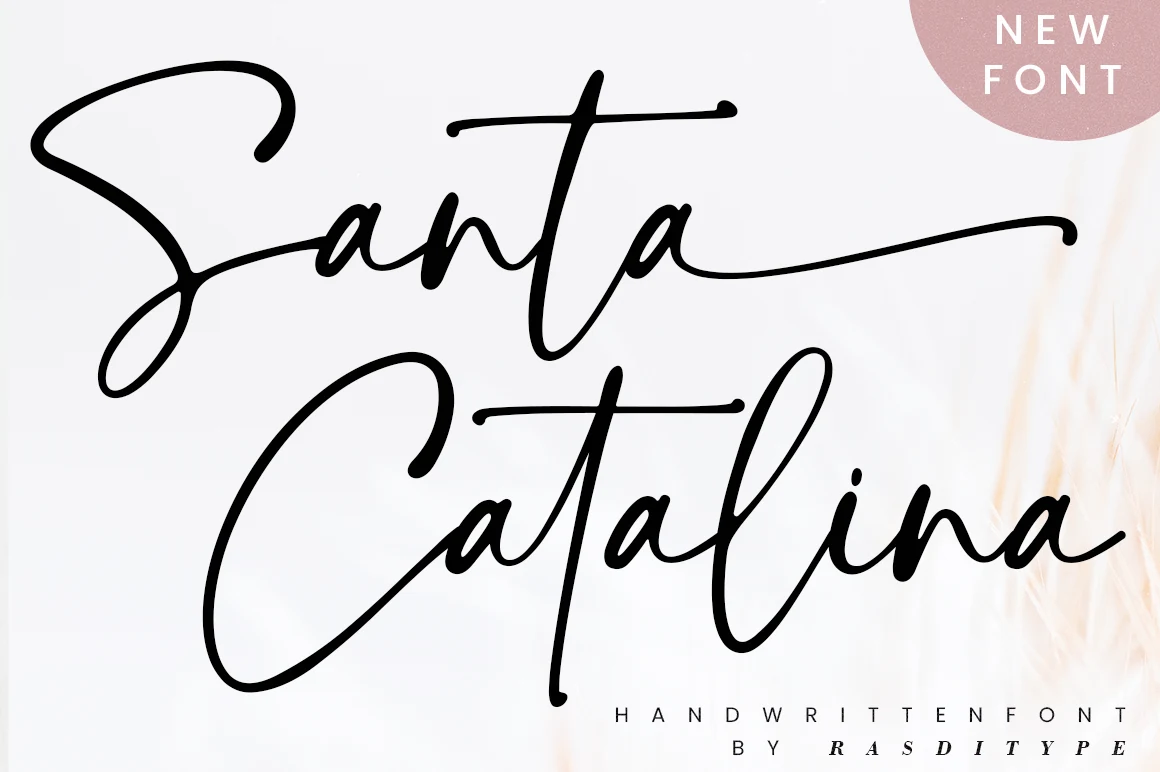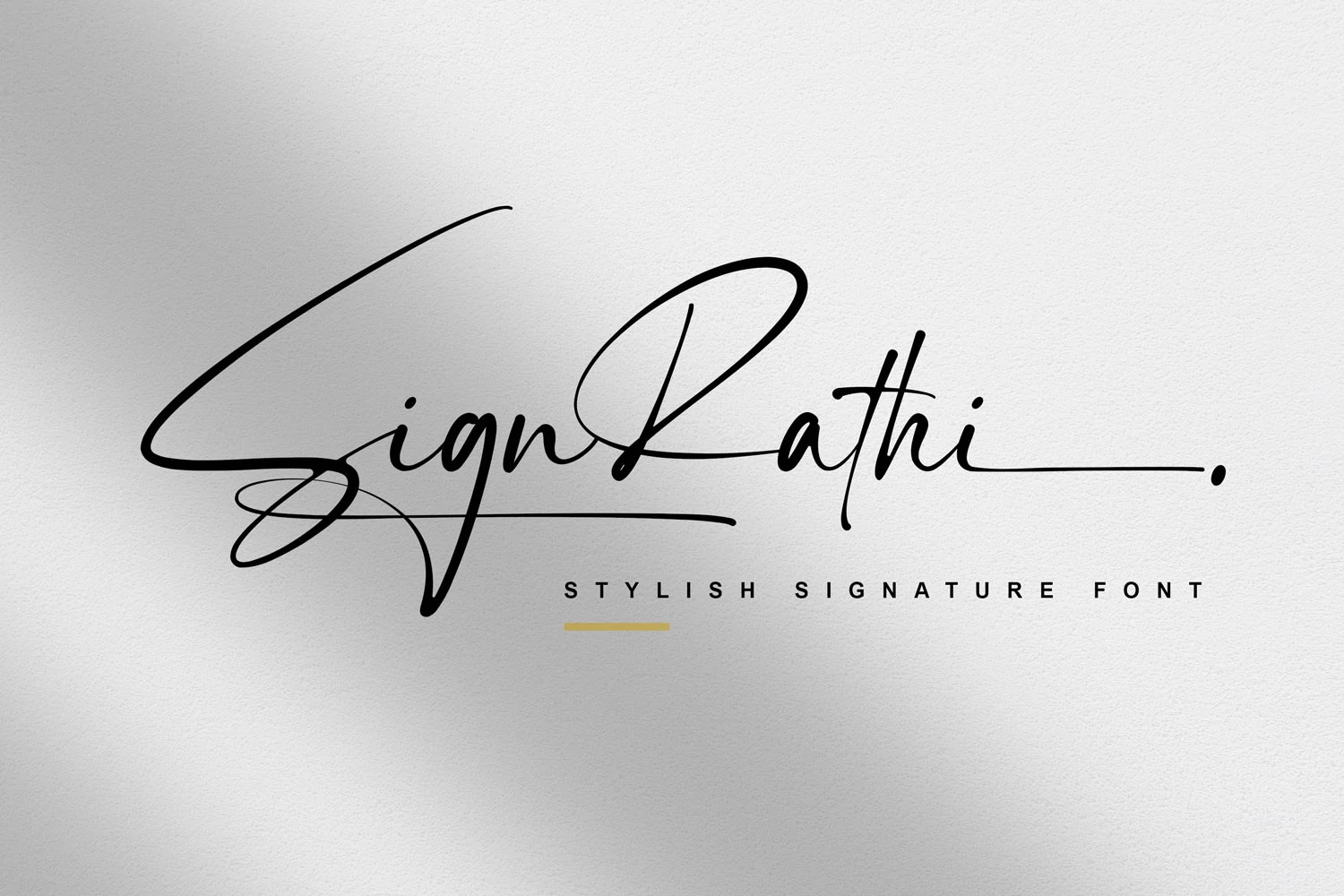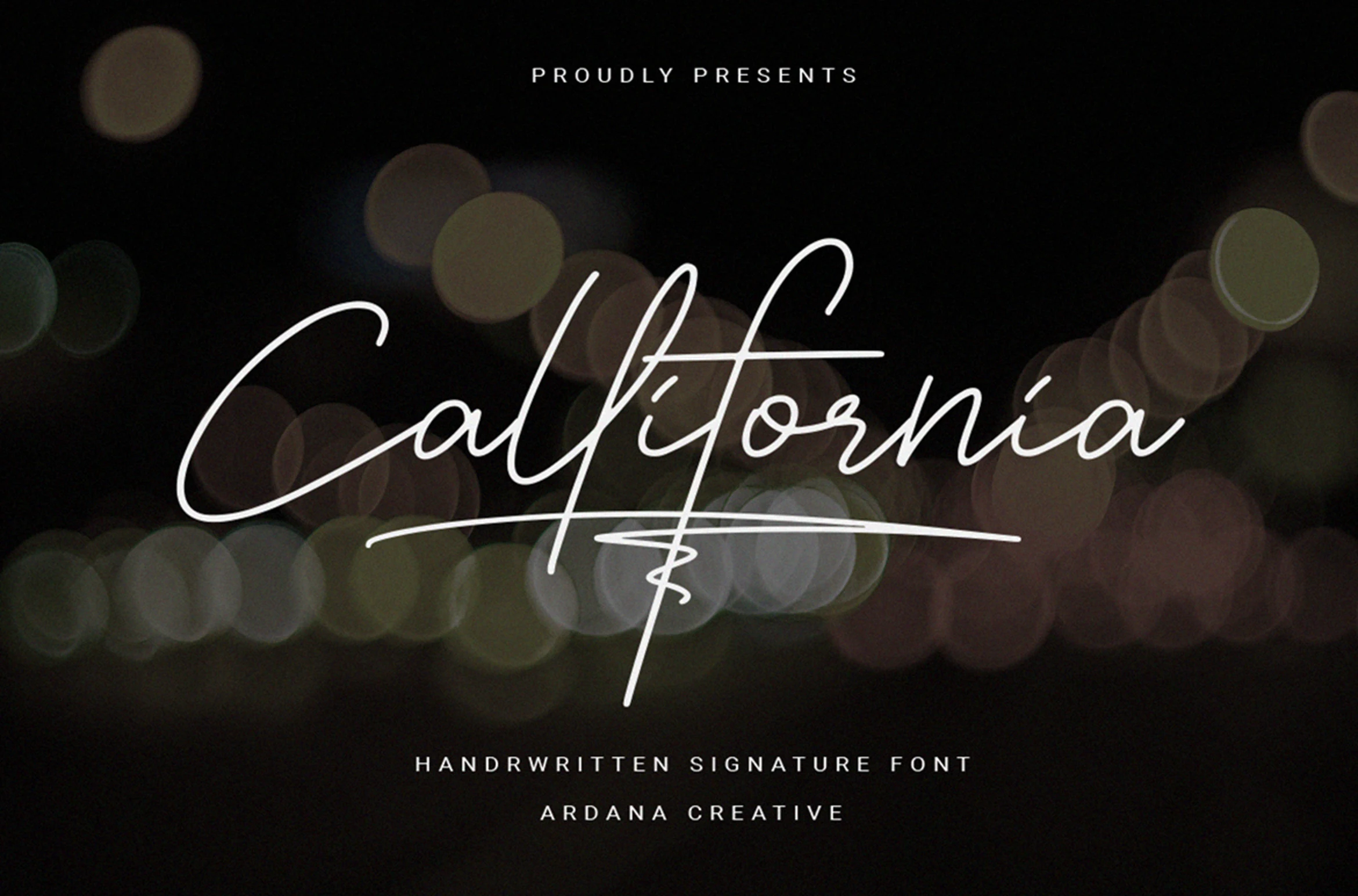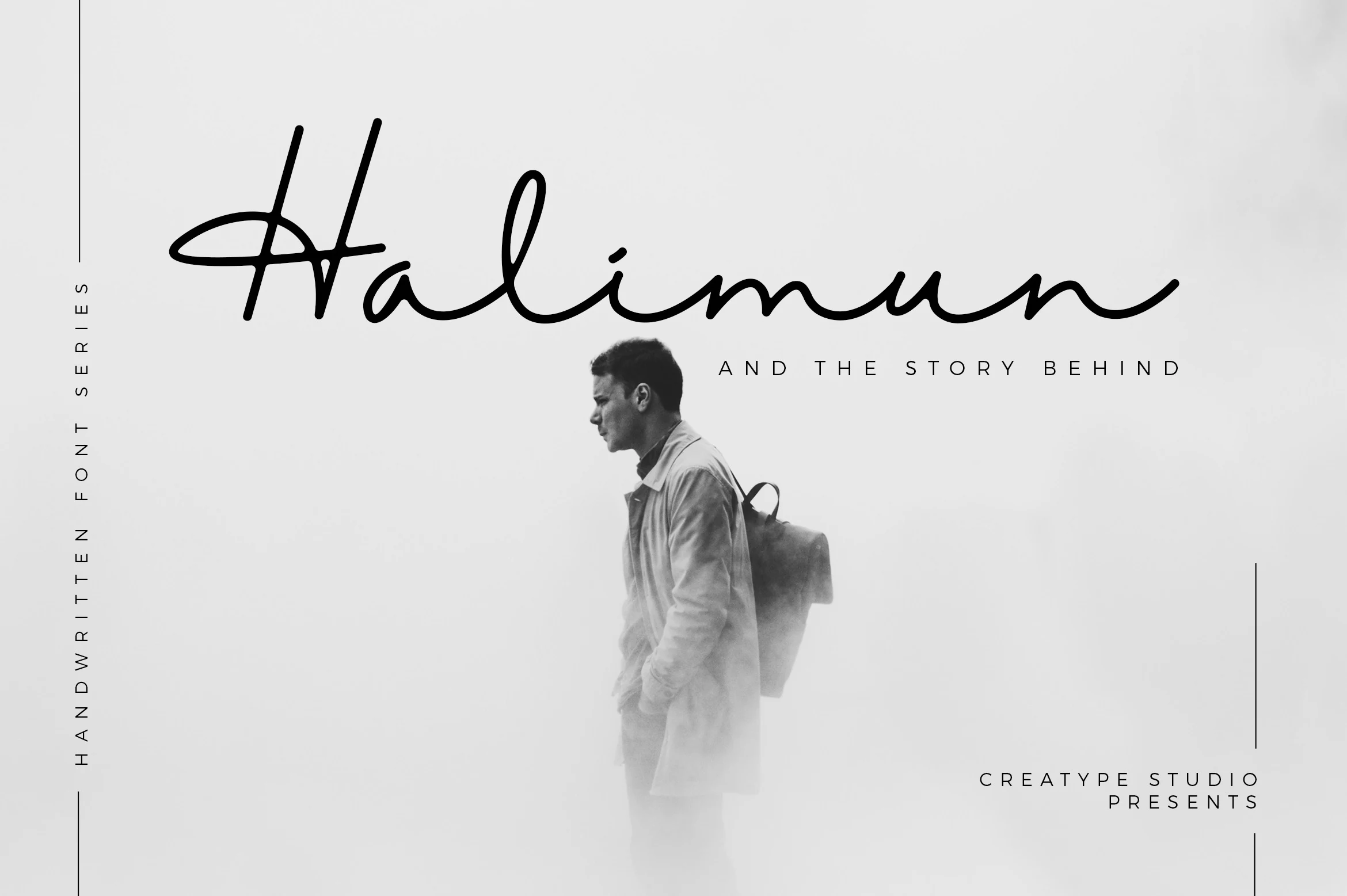
Best Script Fonts: 25 Stunning Picks for Designers
Best script fonts give logos, invitations, packaging, and social graphics a more personal typographic voice. This collection is built for designers who need readable handwritten, signature, retro, playful, or luxury scripts that can work as strong focal points without losing style or hierarchy.
Elegant & Luxury Best Script Fonts
These polished script fonts use refined curves, high contrast, and formal swashes for premium logos, invitations, editorial titles, and upscale brand identities.
Avonia Font
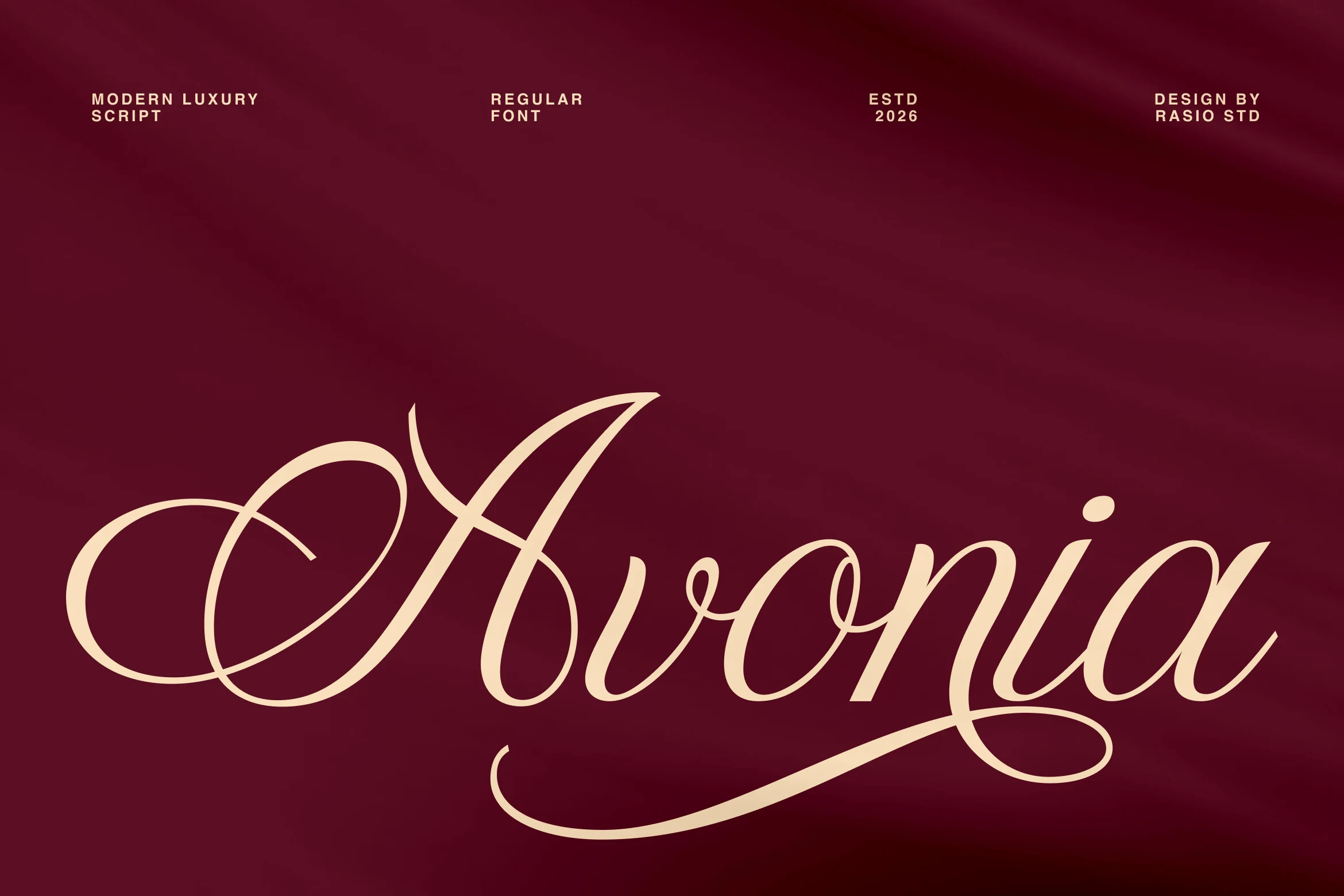
Best For: logos, editorial designs, invitations, luxury designs
Avonia Font has the kind of polished script presence that feels instantly dressy on the page. Its high-contrast strokes, long looping swashes, and tall elegant capitals create a graceful rhythm, while the smooth connections keep the word shape fluid instead of overly ornate.
If you are browsing Best Script Fonts for upscale branding or editorial titles, Avonia stands out in short, confident lines. Let the flourished capitals and extended baseline swash do the work, then pair it with restrained small caps or a quiet serif so the composition stays refined rather than crowded.
Olivia Scatcer Font
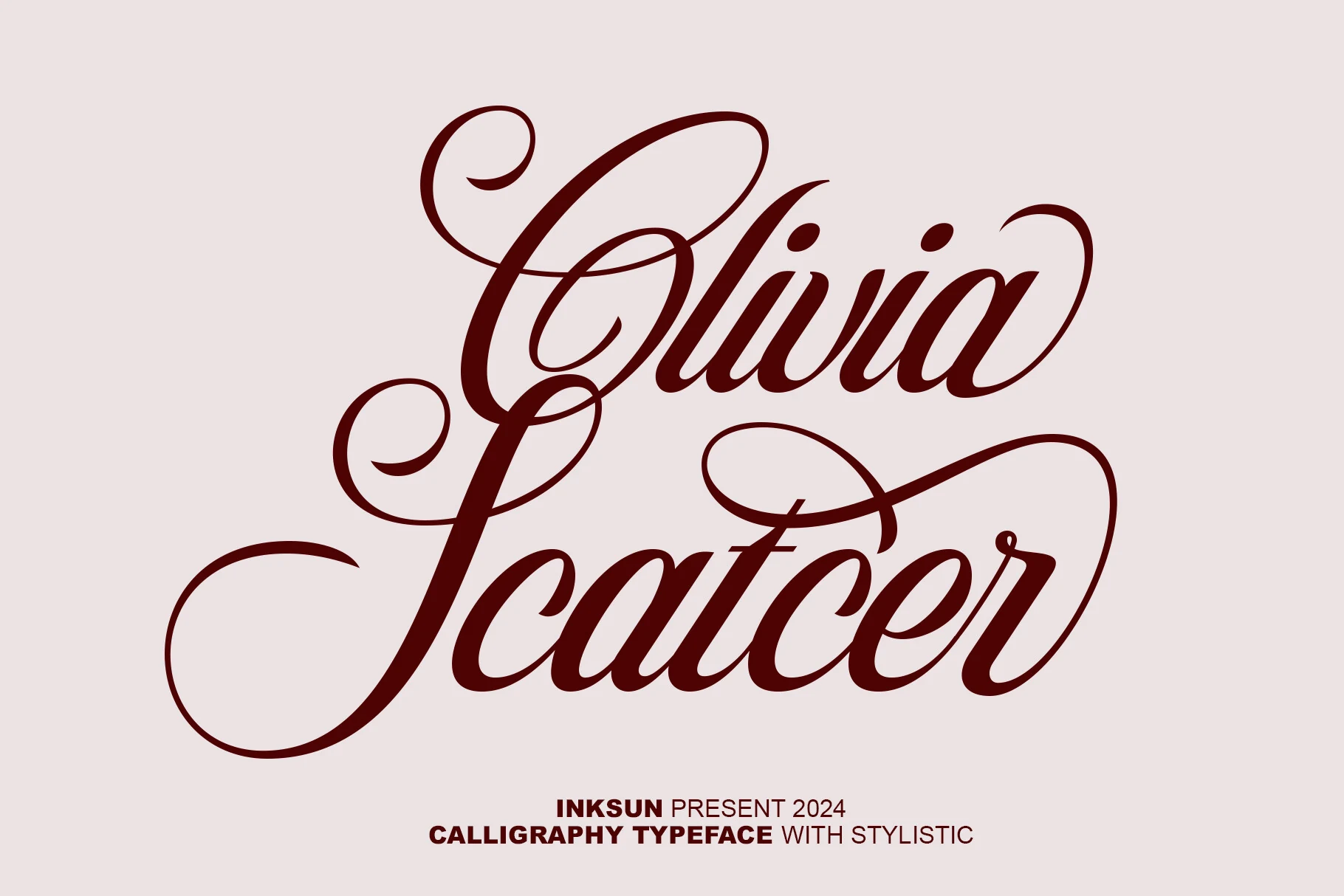
Best For: logos, invitations, editorial designs, luxury designs
Olivia Scatcer Font has a distinctly formal calligraphy style, with dramatic entry swashes, high stroke contrast, and long looping terminals that give each word a ceremonial rhythm. The capitals are especially ornate, while the lowercase stays smooth enough to keep names and short phrases readable.
For Best Script Fonts aimed at luxury stationery or boutique branding, this one works best when you let the flourishes lead. Use it at generous sizes and keep surrounding text restrained; a simple small-cap serif or clean sans beneath it helps control the hierarchy without competing with the sweeping capitals.
Bridgerton Font
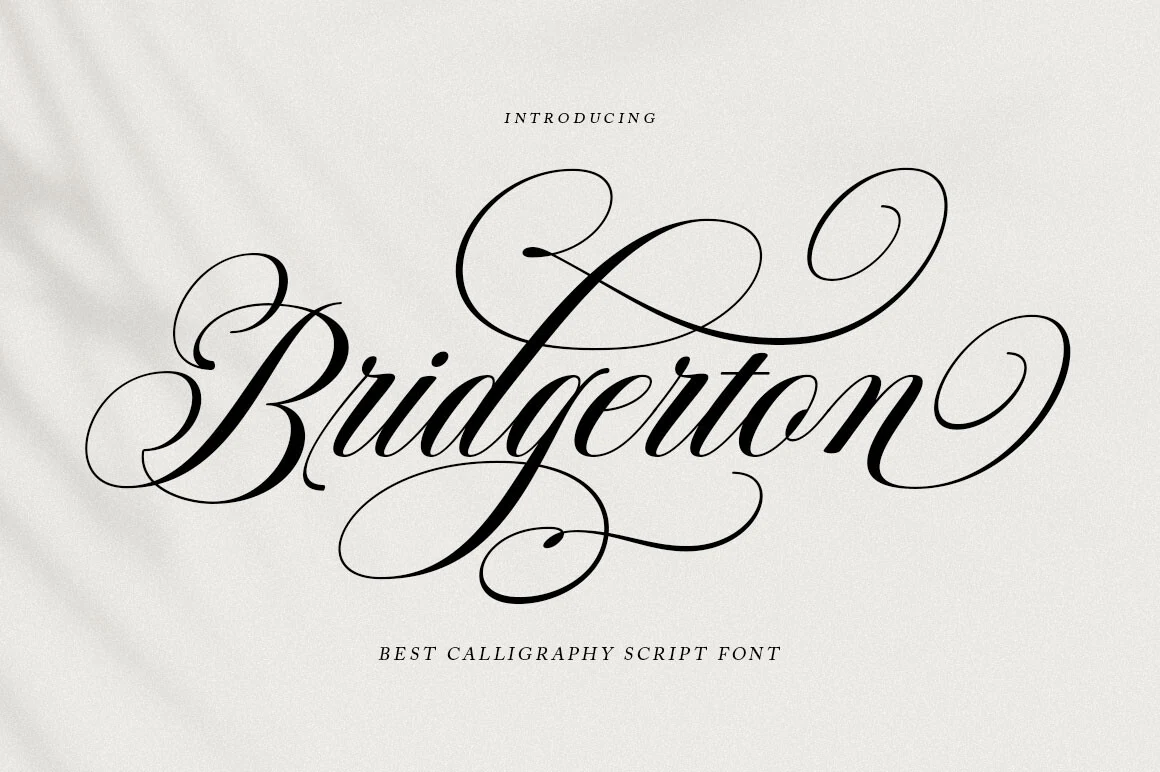
Best For: invitations, logos, fashion branding, wedding designs
Bridgerton Font is built in a refined copperplate style, with dramatic contrast, hairline connectors, and sweeping loops that extend far beyond the word itself. The capitals are highly decorative, but the lowercase stays smooth and controlled, which keeps the script graceful instead of overly dense.
If you are exploring Best Script Fonts for formal stationery or luxury branding, Bridgerton works best as the hero line in the layout. Give the flourishes generous margins and keep supporting text simple with a clear hierarchy; short names, titles, and signature-style marks let the elegant swashes read without crowding the composition.
Gadiani Font
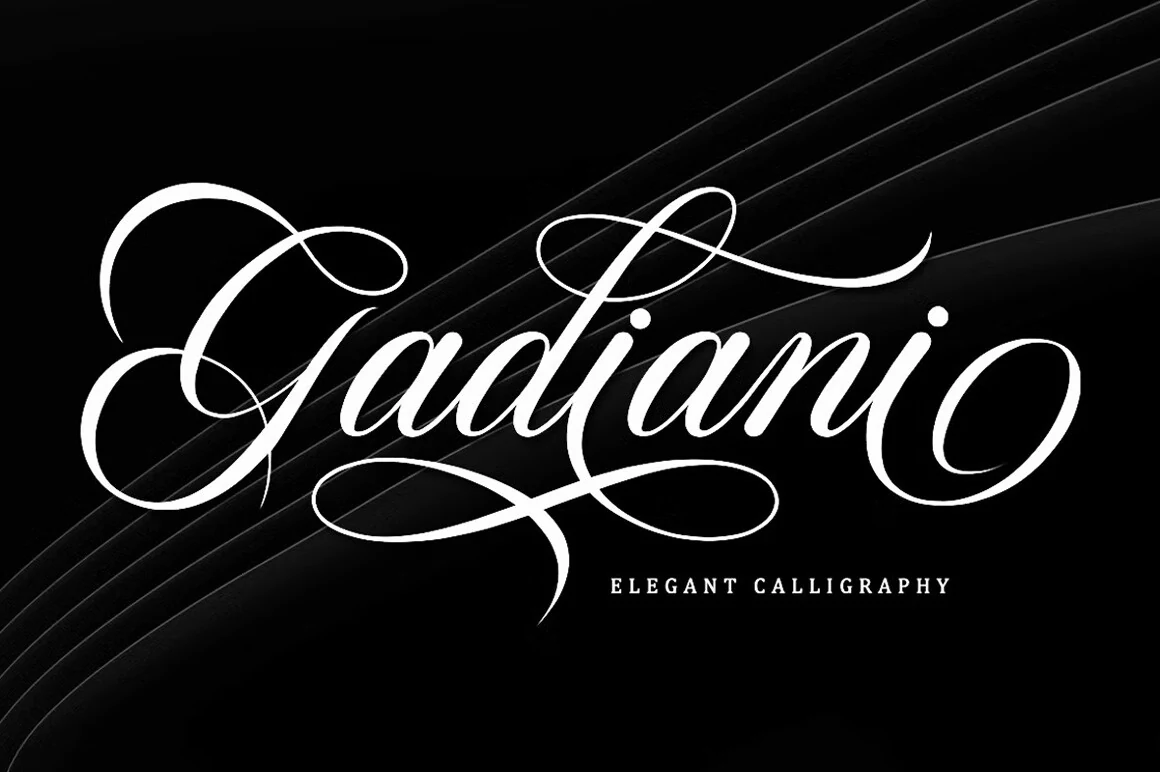
Best For: invitations, logos, beauty branding, wedding designs
Gadiani Font has a polished calligraphy look, with slender upstrokes, fuller downstrokes, and long looping swashes that turn each word into a decorative centerpiece. The capitals feel especially dramatic, while the lowercase keeps a smooth, readable rhythm that softens the more ornate flourishes.
Within Best Script Fonts, Gadiani stands out when you want a formal signature feel without losing clarity. It works best for short names, marks, and headline phrases where the extended strokes have space to breathe; keep secondary text simple and well separated so the flourished ascenders and descenders stay elegant instead of tangled.
Shina Qatline Font
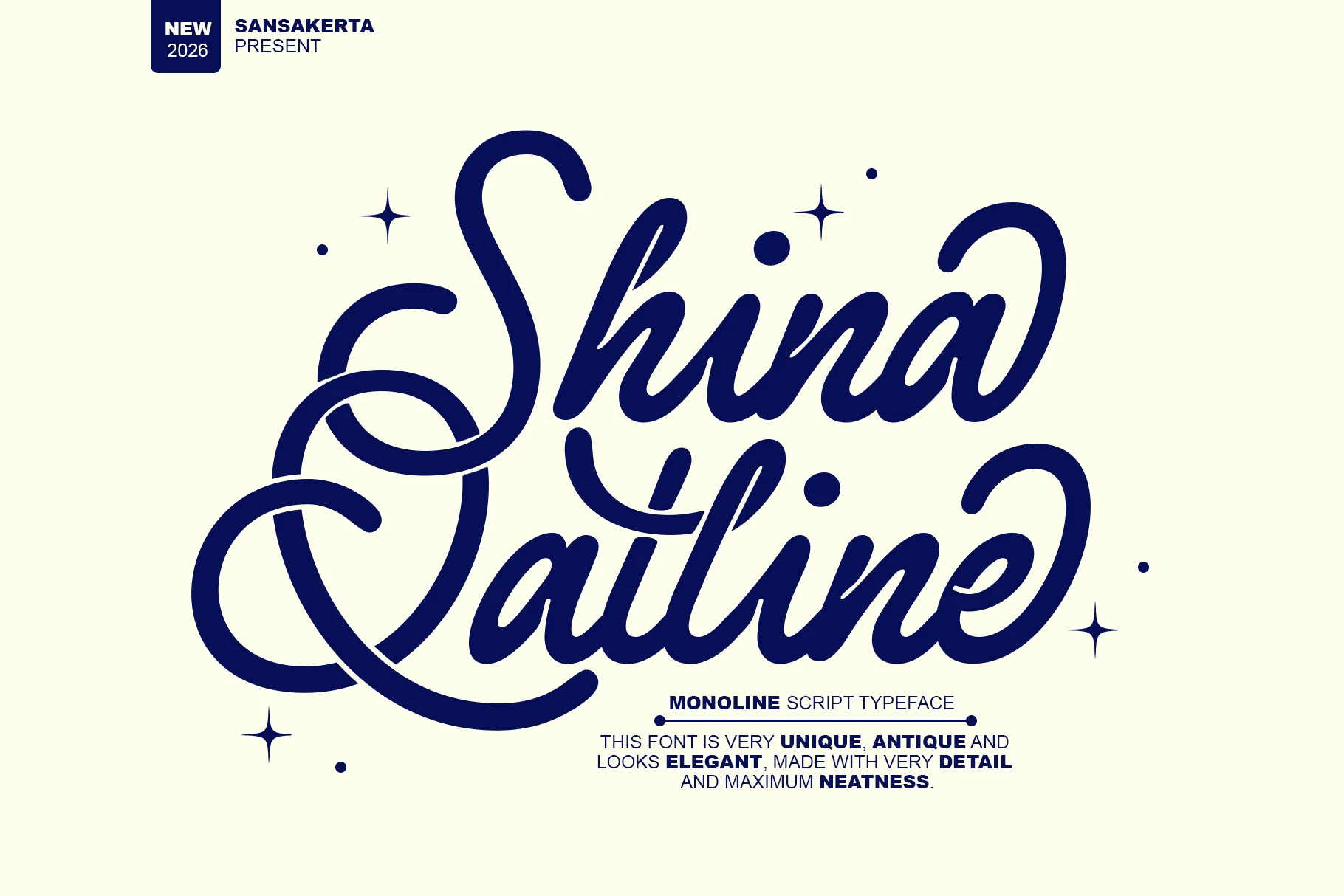
Best For: logos, invitations, beauty branding, elegant designs
Shina Qatline Font has a polished monoline flow, with smooth connected strokes, generous curves, and oversized looping capitals that give it a poised vintage feel. The even line weight keeps the script crisp, while the open counters and balanced rhythm stop those flourishes from feeling fussy.
In a roundup of Best Script Fonts, this one works especially well when you want decorative movement without losing clarity. Use it for short names, refined marks, or statement headings, and keep the spacing around the capitals fairly open so the sweeping swashes can frame the layout instead of colliding with nearby text.
Aurelia Font
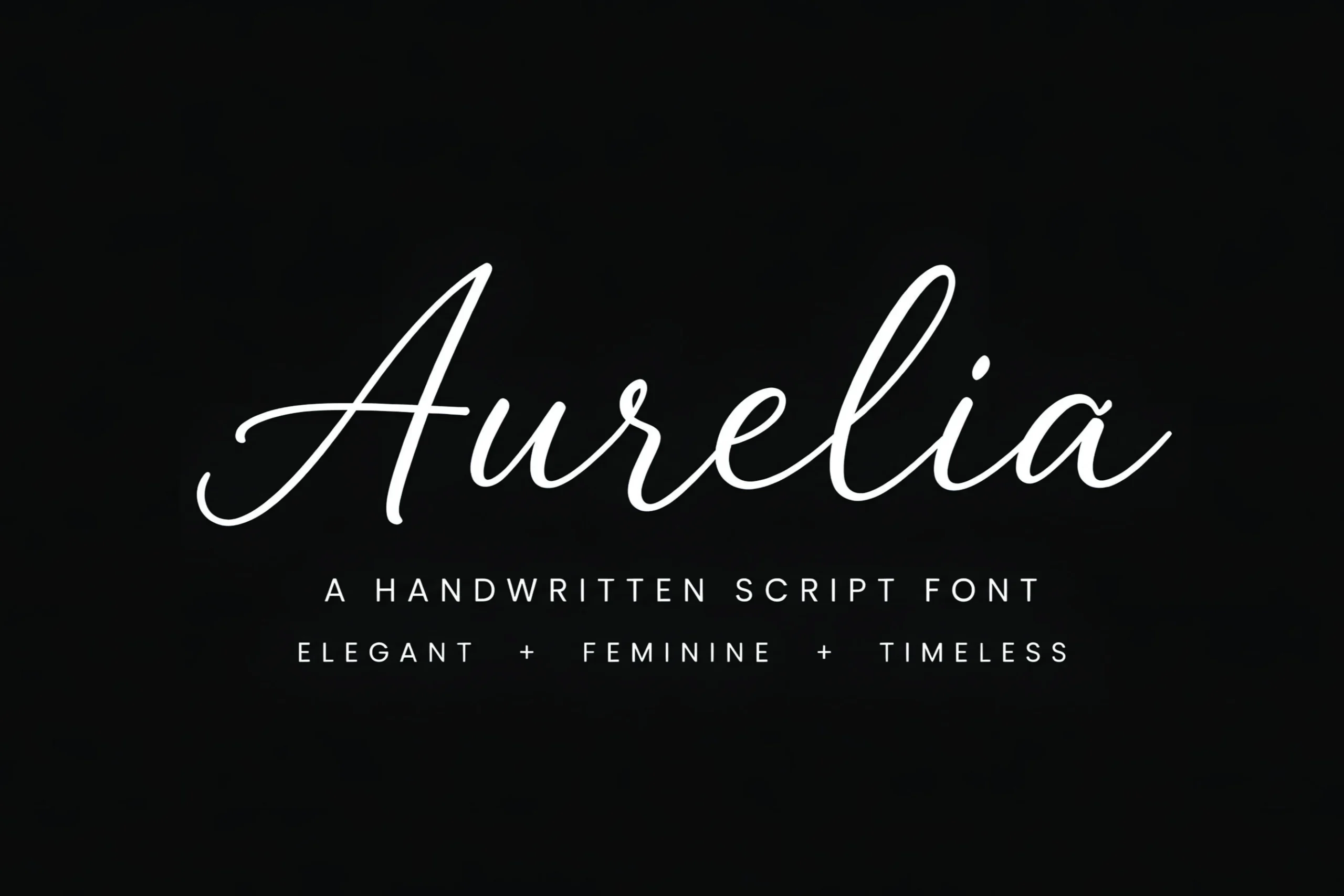
Best For: logos, invitations, beauty branding, elegant designs
Aurelia Font has a light signature rhythm, built from thin strokes, smooth joins, and long elegant curves that feel refined without becoming fussy. The capital A brings a graceful sweep, while the rest of the word stays open and airy, which helps the script read cleanly despite its delicate weight.
For Best Script Fonts with a polished handwritten feel, Aurelia works best in short names, boutique marks, and understated headings. Give it generous spacing and pair it with restrained supporting type; the slender line quality and wide letter proportions already create the contrast, so the layout looks strongest when it stays uncluttered.
Signature & Monoline Best Script Fonts
These airy signature and monoline scripts work best for personal logos, boutique marks, website headers, and elegant name-based branding.
If you are browsing Best Script Fonts for a true retro mood, this one works best when the lettering gets room to spread. Use it for short titles or marks and pair it with a plain, upright secondary typeface; that contrast keeps the bulbous shapes and broad swashes readable instead of letting the layout feel overly busy.
Conclusion
Choose elegant and luxury scripts for premium or formal layouts, signature styles for personal branding, bold rounded scripts for packaging and social graphics, and retro or playful options when the design needs stronger display character.